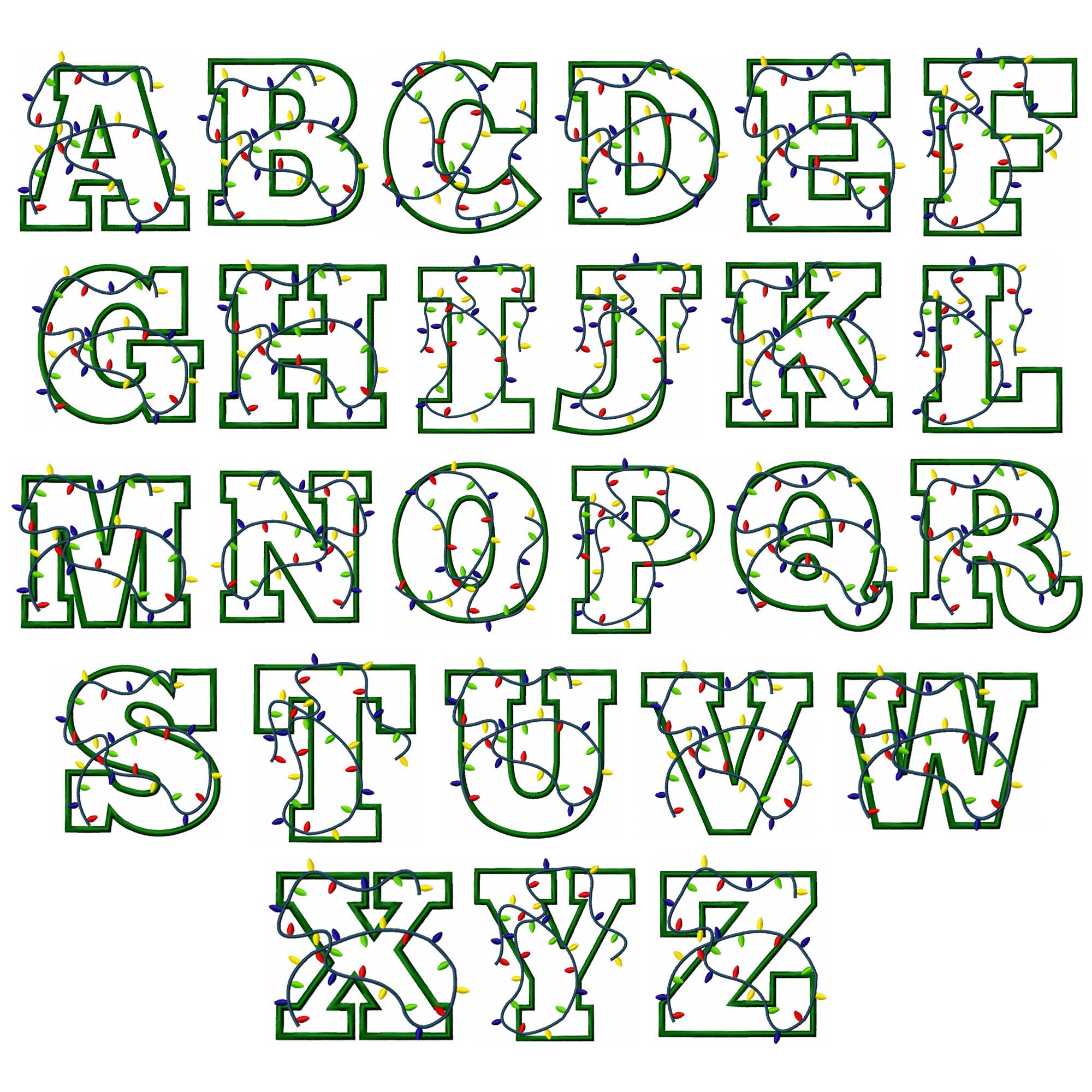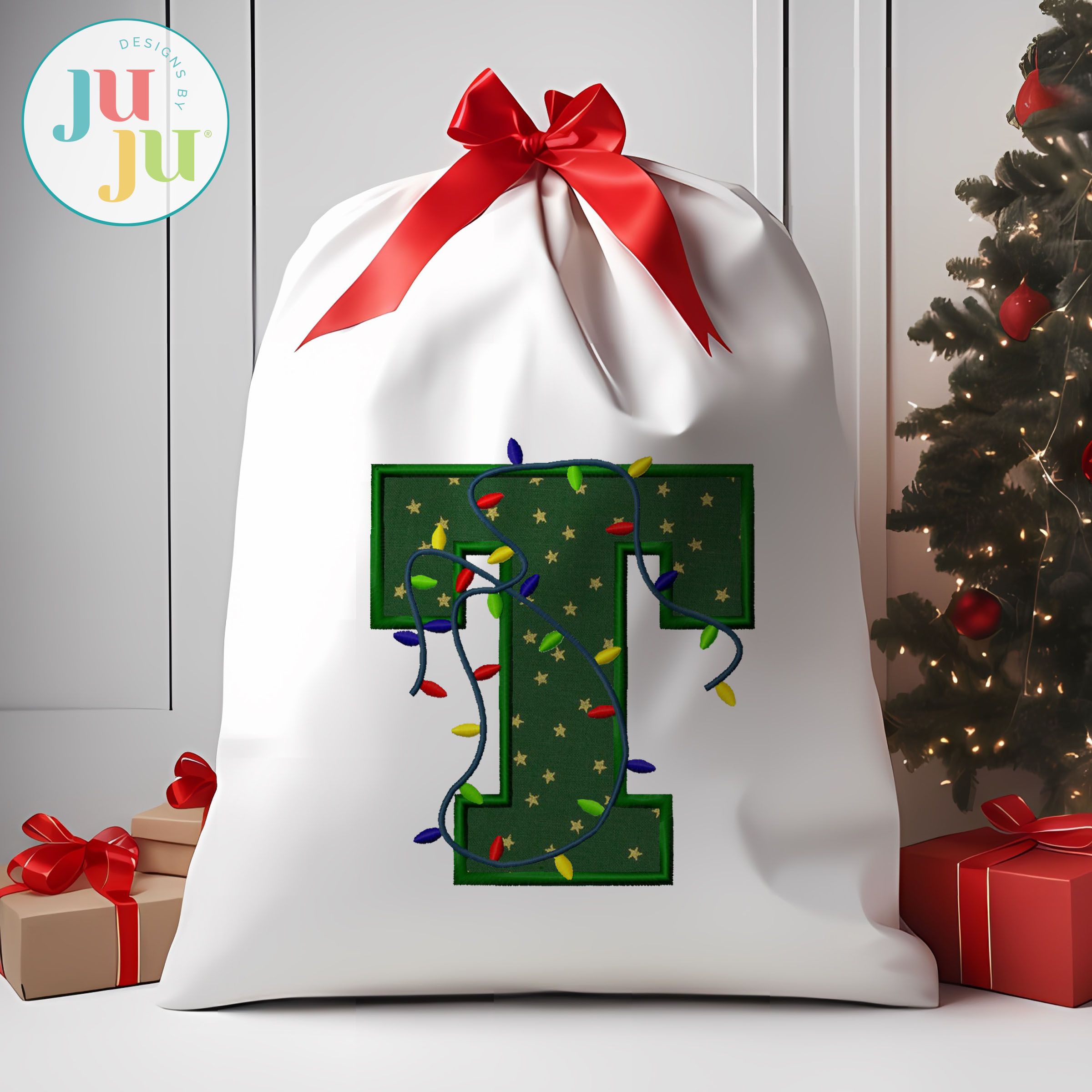
Christmas String Small Lights Satin Stitch Applique Monogram Embroidery Font
Customize holiday projects with our Christmas Lights applique alphabet! Capital Letters A-Z included.